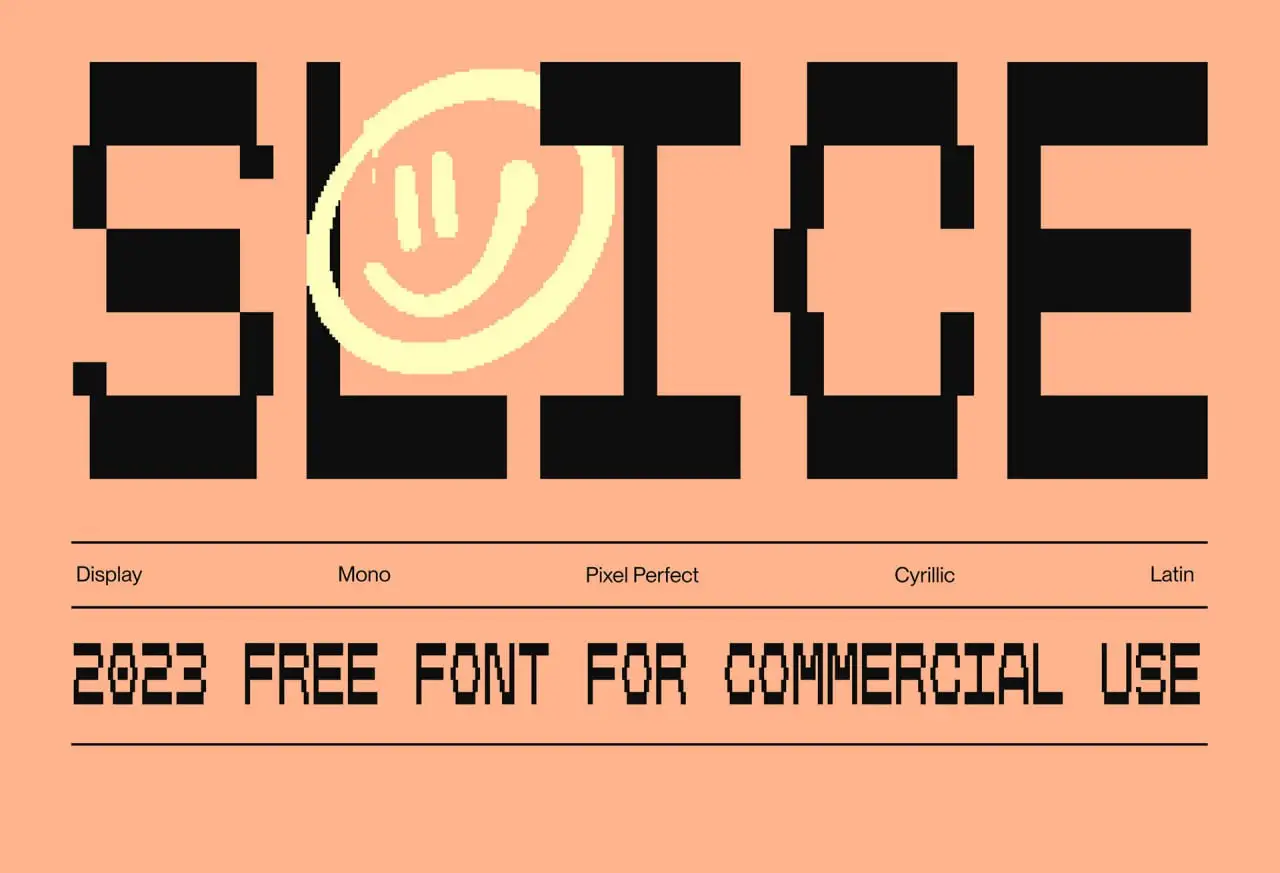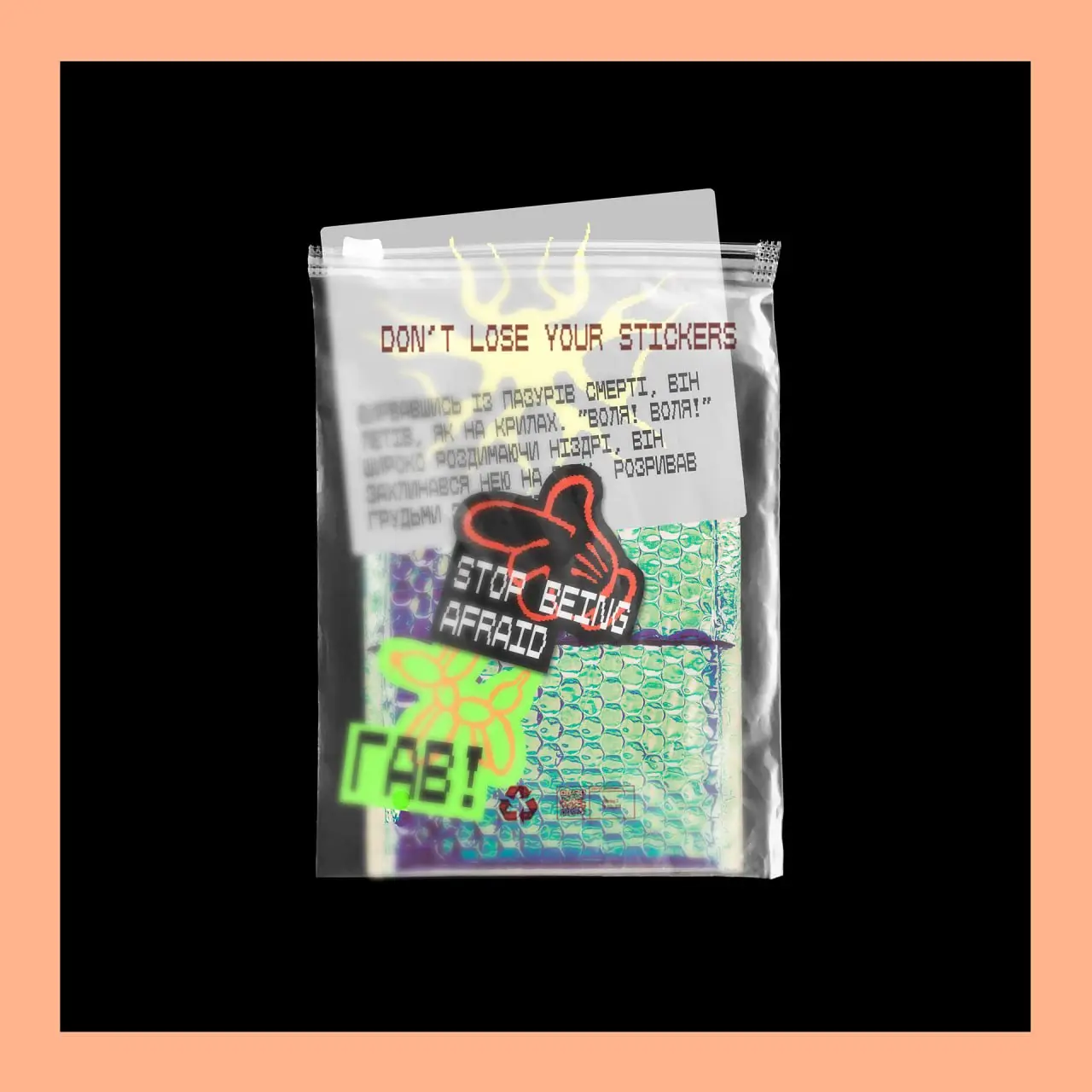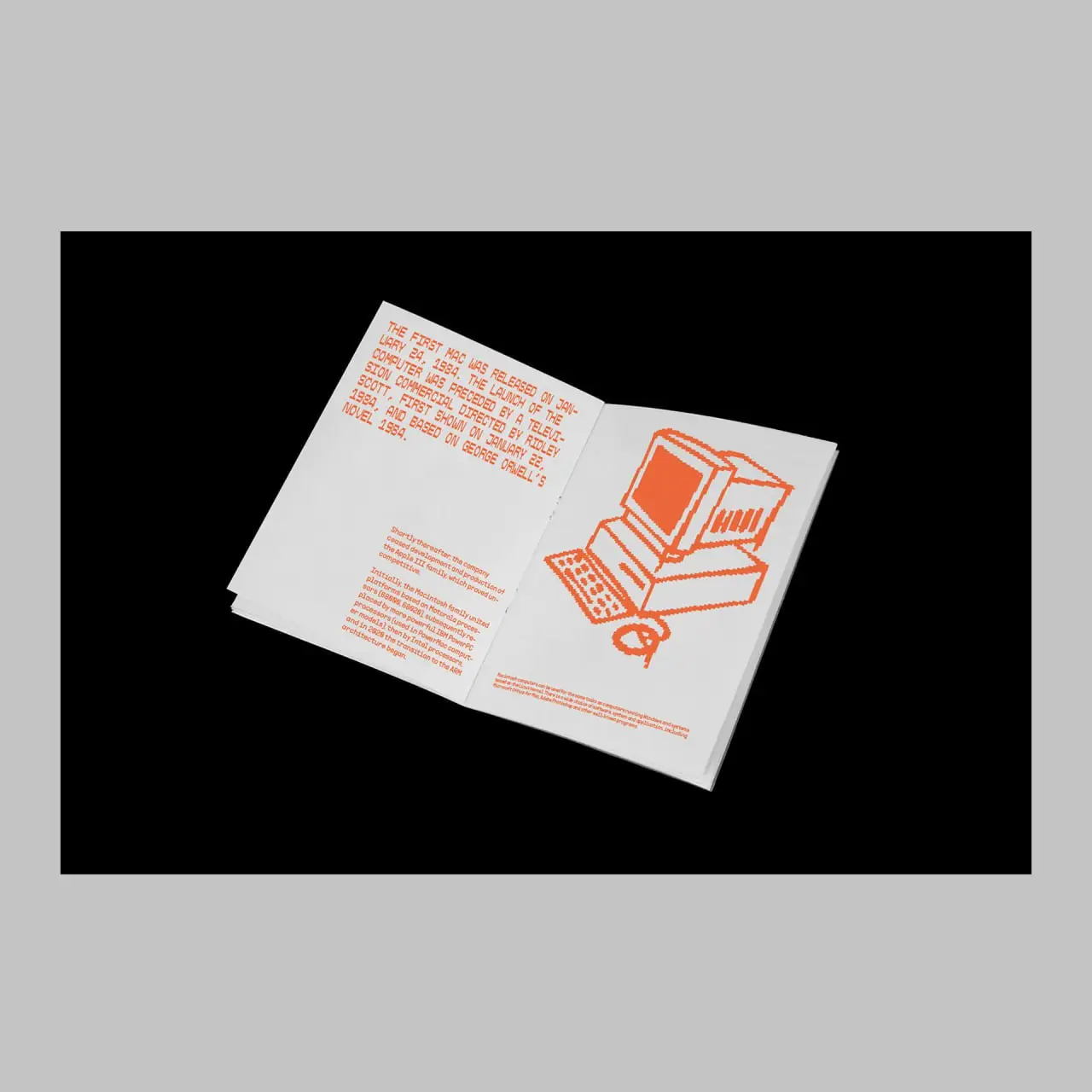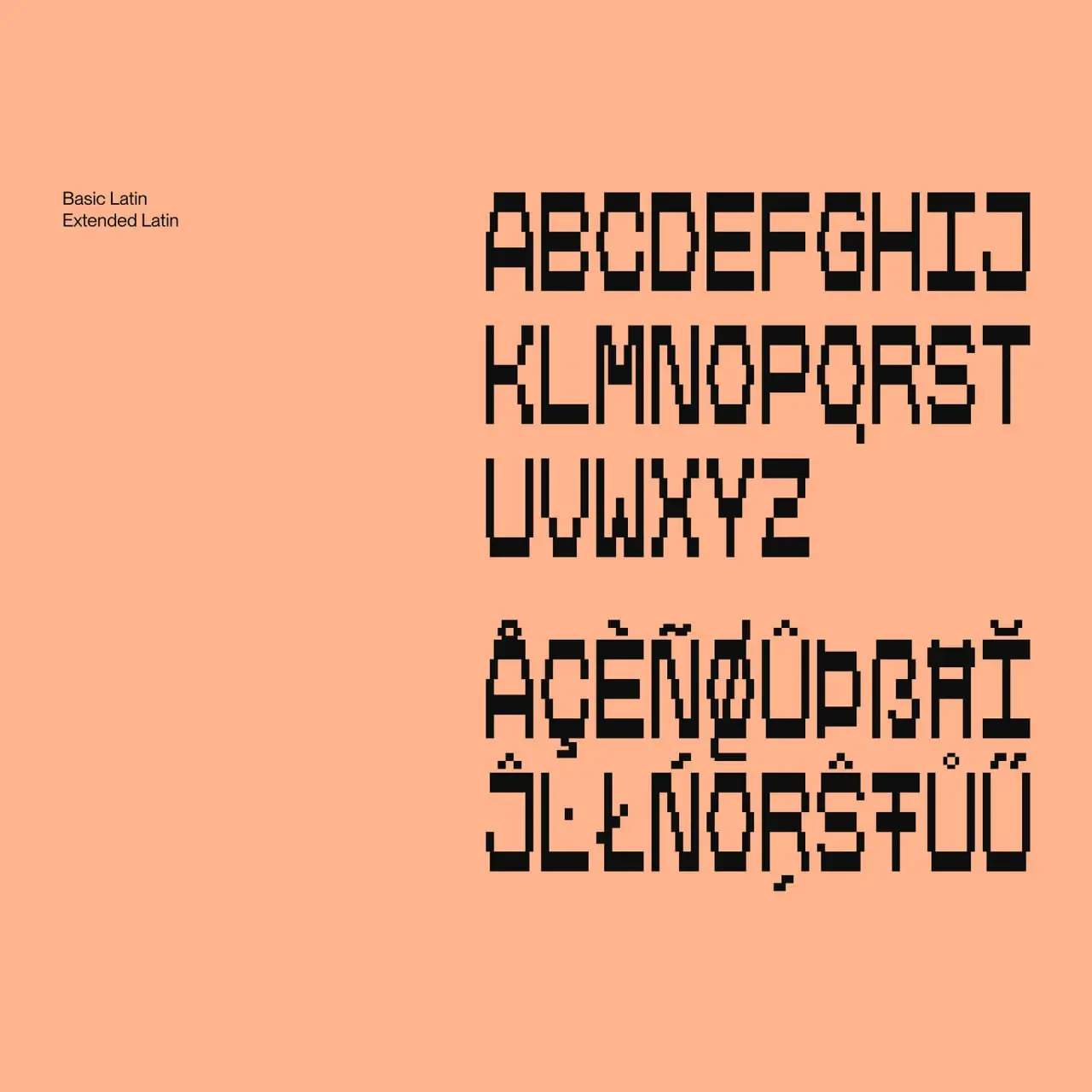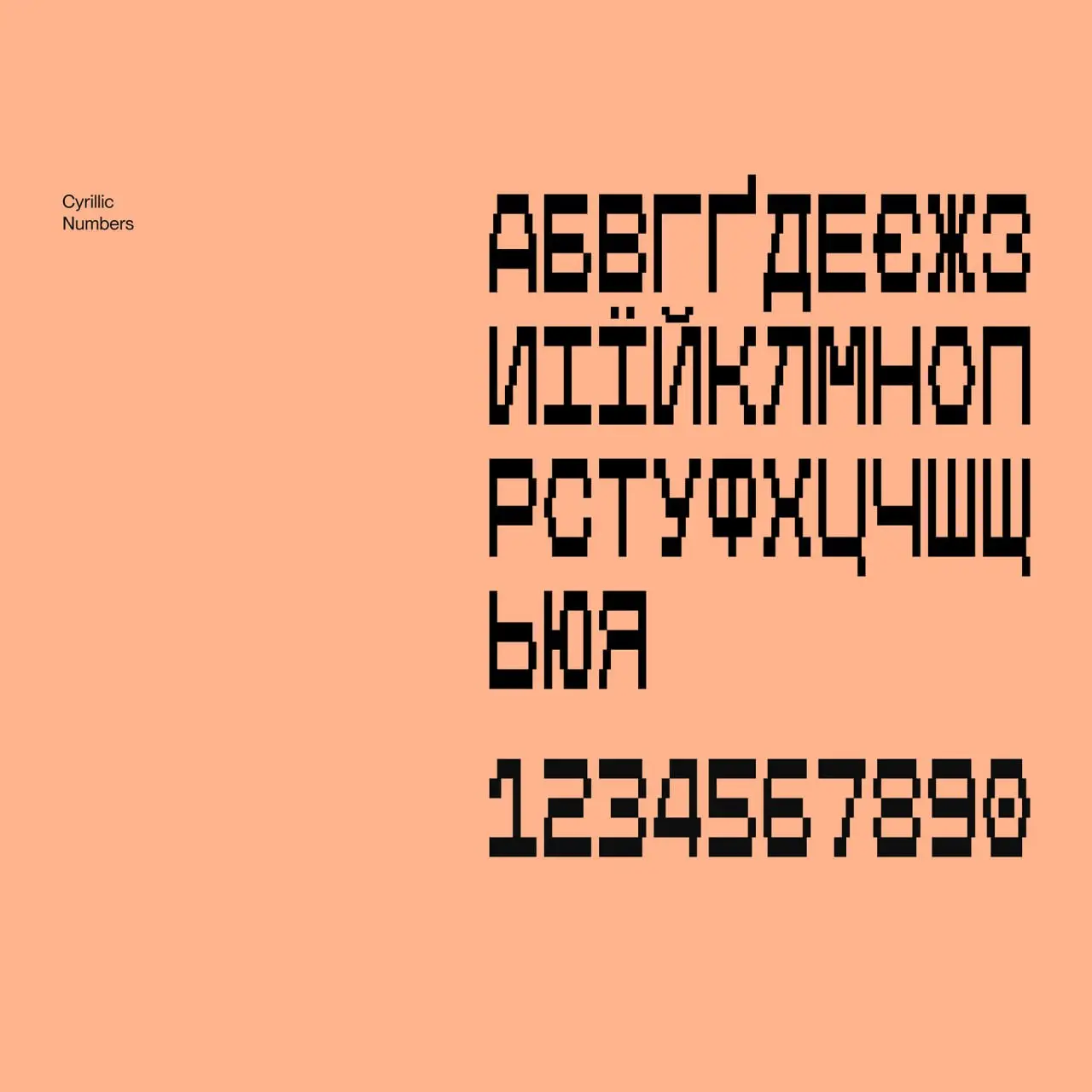
Slice Mono Free Font By Maksym Baluiev (Httpswww Behance Netbaluiev)
Introducing the Slice Mono Free Font by Maksym Baluiev, a versatile typeface designed for modern applications. This monospaced font features clean lines and a contemporary aesthetic, making it an excellent choice for both digital and print projects.
• Monospaced design for uniformity
• Multiple weights for varied applications
• Uppercase and lowercase letters included
• Supports a wide range of languages
Ideal for branding, logos, user interfaces, and print materials. The Slice Mono font adds a modern touch to any project, ensuring clarity and readability.